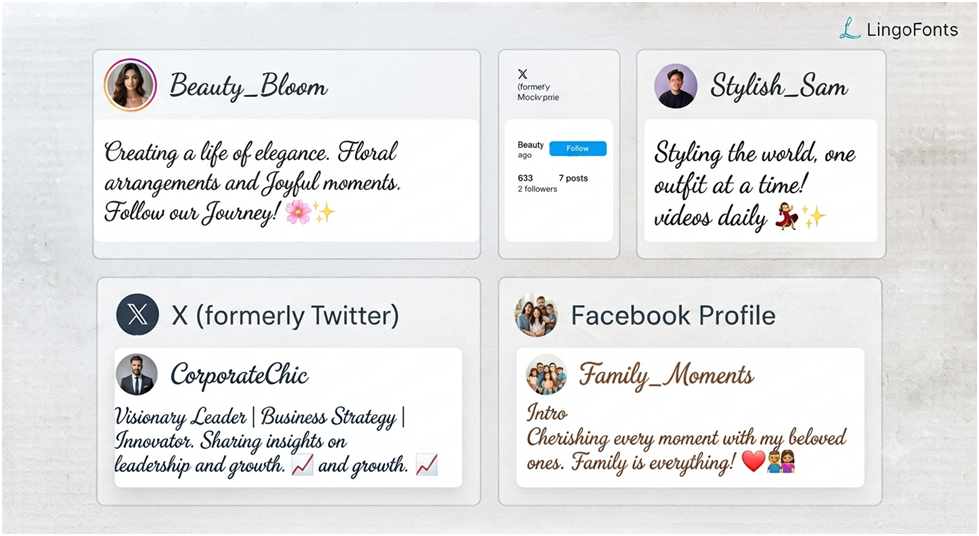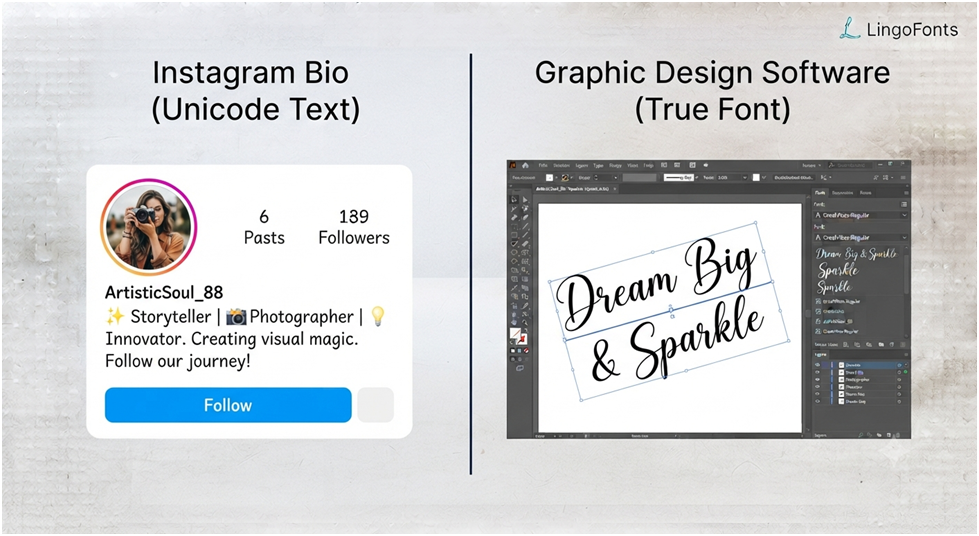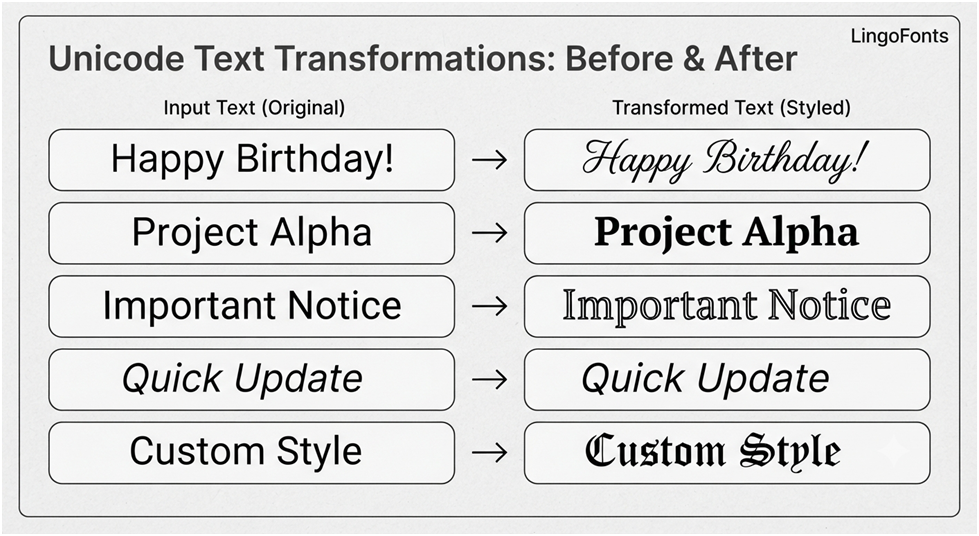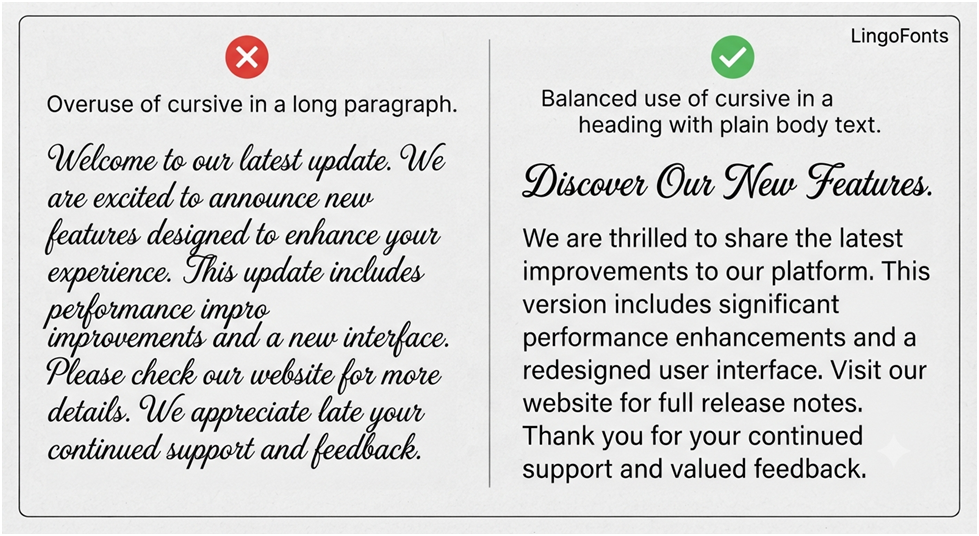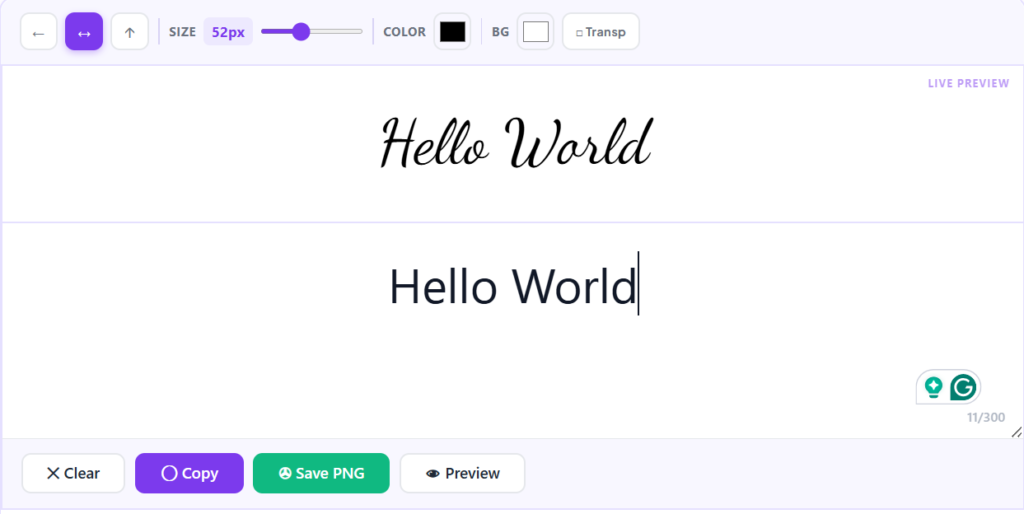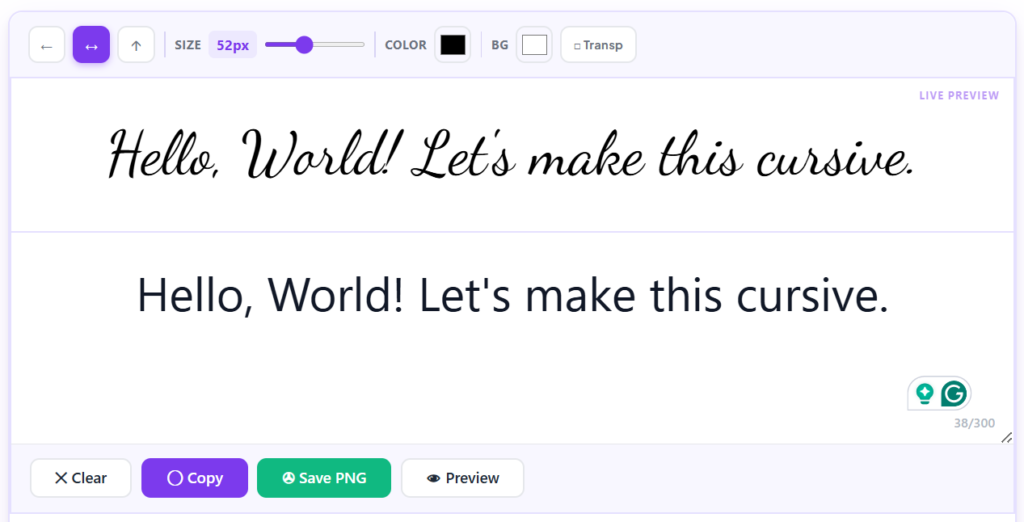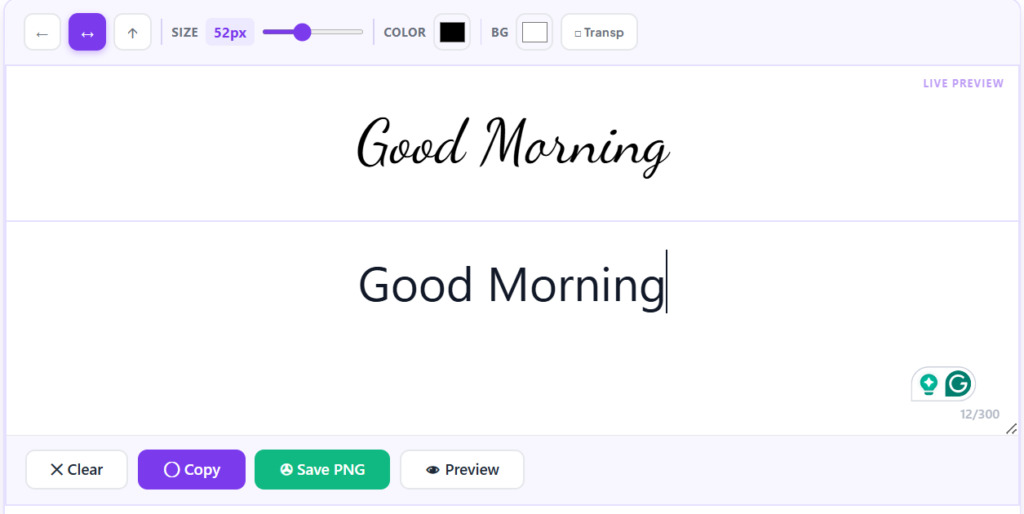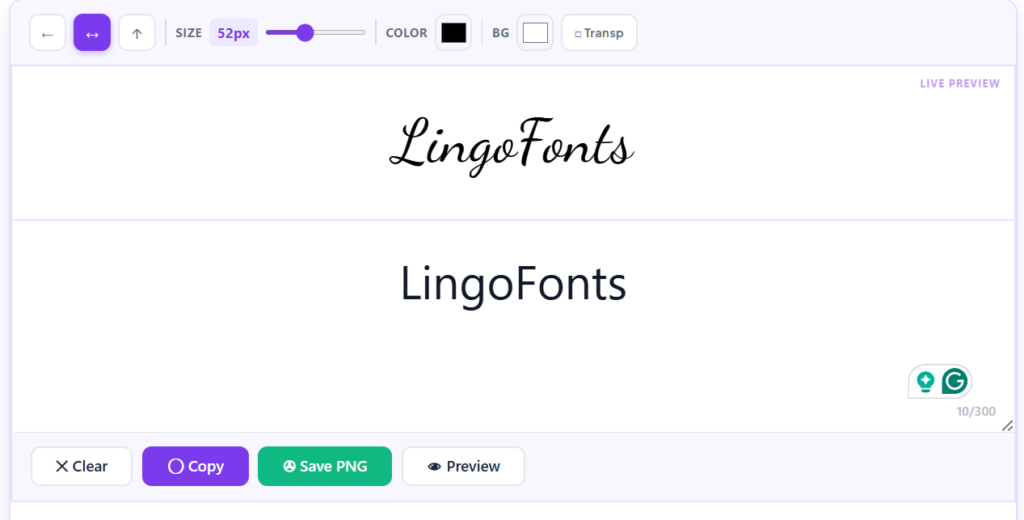
Convert Text to Cursive: The Complete Beginner’s Guide to Cursive Text Generators
Have you ever wanted your text to look elegant without learning calligraphy or installing special fonts? A convert text to cursive tool makes it easy. Simply type your text, and it instantly transforms it into stylish cursive characters that you can copy and paste almost anywhere.
Whether you’re creating an Instagram bio, designing a social media post, sending a unique message, or adding personality to your online profile, a cursive text generator helps you produce decorative text in seconds.
• What it means to convert text to cursive
• How cursive text generators work
• How to use a cursive text generator step by step
• Where you can use cursive text
• The differences between Unicode text and actual cursive fonts
• Common mistakes to avoid
• Best practices for getting readable, attractive results
Quick Answer :A convert text to cursive tool changes normal text into decorative Unicode cursive characters that you can copy and paste into social media profiles, messages, websites, and other supported platforms. Unlike traditional fonts, no installation is required because the generator uses Unicode characters instead of font files.
A Cursive Text Generator is an online tool that converts ordinary text into Unicode characters that resemble cursive handwriting. The generated text can usually be copied and pasted into social media platforms, messaging apps, and websites without installing fonts.
Convert Text to Cursive at a Glance
Best ForSocial Media, Usernames, Messages, Invitations
Real Font?No (Uses Unicode Characters)
What Does “Convert Text to Cursive” Mean?
Converting text to cursive means changing ordinary letters into decorative script-style characters that resemble handwritten writing.
For example:
Regular TextCursive Text
Hello𝓗𝓮𝓵𝓵𝓸
Welcome𝓦𝓮𝓵𝓬𝓸𝓶𝓮
LingoFonts𝓛𝓲𝓷𝓰𝓸𝓕𝓸𝓷𝓽𝓼
Beautiful Writing𝓑𝓮𝓪𝓾𝓽𝓲𝓯𝓾𝓵𝓦𝓻𝓲𝓽𝓲𝓷𝓰
Unlike handwriting, these characters are generated digitally using special Unicode symbols rather than installing a new font on your device.
That means you can simply copy the generated text and paste it into many websites, apps, and social media platforms.
Is It a Real Font?
This is one of the most common questions beginners ask.
The answer is no.
Most online cursive generators do not create actual font files. Instead, they replace standard letters with visually similar Unicode characters.
Think of it like this:
• A font changes how text is displayed on your device.
• A Unicode cursive generator changes the actual characters you copy.
Because the characters themselves are different, they can often be pasted into platforms that don’t allow custom fonts.
Unicode vs. Real Fonts
Many people confuse Unicode text with fonts, but they work in different ways.
Unicode Cursive TextTraditional Font
Uses Unicode charactersUses font files (.ttf, .otf)
Copy and paste instantlyMust be installed
Works on many social media platformsUsually doesn’t work in social media bios
No downloads requiredInstallation required
Easy for beginnersBetter for graphic design and printing
If your goal is stylish text for online use, a text to cursive generator is usually the easiest option.
Unicode vs. Real Fonts
Why People Use Cursive Text Generators
Thousands of people use cursive text generators every day to create stylish Unicode text for social media, gaming profiles, invitations, digital branding, and creative projects.
Some of the most common reasons include:
• Making Instagram bios more attractive
• Creating unique Discord usernames
• Designing stylish TikTok captions
• Personalizing Facebook posts
• Writing elegant wedding invitations
• Creating decorative email signatures
• Adding personality to YouTube channel descriptions
Unlike traditional fonts, Unicode cursive text doesn’t require any software installation, making it one of the easiest ways to style text online.
While cursive text is excellent for names, headings, quotes, and short phrases, it’s best used thoughtfully. Keeping longer content in plain text improves readability, accessibility, and compatibility across devices.